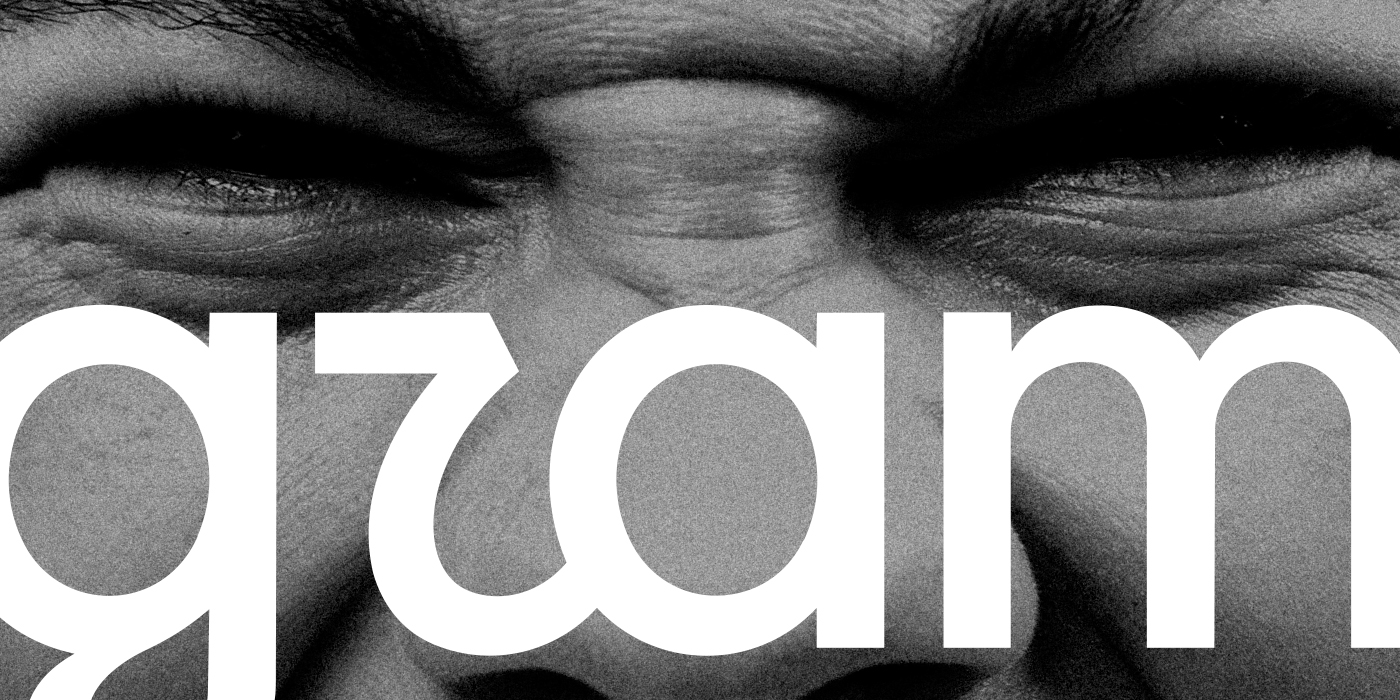
Within hours of Adam Mosseri posting the reveal of the new Instagram wordmark, there was a pile of comments pointing out that the new cursive “r” reads more like a “z.” “Instagram” became “Instagzam” and brands came out of nowhere to run with the joke: Wendy’s, KitKat, Knorr, Canva, Oppo, even ChatGPT posted their own logos “refreshed” in a suspiciously Instagram-adjacent script, mocking the update on the app’s own playground. It’s the kind of bullying that only happens when a redesign touches something almost 3 billion people look at daily. Some of the criticism is fair, some of it is just the internet doing what the internet does best. But underneath the memes is a genuinely interesting typographic problem, and that’s the part we actually want to dig into.
So, why did Instagram need a rebrand at all?
Here’s the thing about Instagram’s old wordmark: it had been doing the same job, unchanged, for over ten years, while everything underneath it kept evolving. Meta’s in-house team, led by Christy Silva (creative director) and Cynthia Pratomo (director of brand design), alongside Meta’s Jasmine Probst (director of product design) and May Hartono (director of brand design), worked alongside global creative studio Koto on the execution. Koto has since published its own case study on the project, titled A new mark with old memories.
The communication problem they were solving is more interesting than “it’s time for a refresh.” When Instagram launched, the camera glyph and sunset gradient had to carry the full weight of telling you what the app even was. Now that Instagram is, in Christy Silva’s words, familiar to billions, the brand doesn’t need to explain itself anymore. It needs to express what Instagram has become: a platform that holds serious campaigns, shitposting and blurry concert photos all at once. Cynthia Pratomo describes it as Instagram “growing up”, not becoming more serious, just admitting it no longer speaks in one single voice.
The refresh brings an updated Instagram Sans, a new handwriting typeface called Instagram Pen (still in development, built from testing everything from soft pencil to bold ink), and a brand-new Instagram Mono. Motion, layout and UI all got more breathing room, and the sunset gradient now shows up more sparingly, sometimes as a “light leak” nod to actual film photography instead of a flat digital fill. The camera glyph itself hasn’t moved an inch. The rebrand is a system-level update dressed as a logo change.
About that “r”
Now, the technical bit. Instagram’s wordmark has always been a script. That means connected letterforms and  in the case of the lowercase “r”, a small “loop” or “peak” that curls up and continues the letter. That little loop is what tells your eye “this is an r,” distinct from an “n” or, in this case, a “z.”
When a rebrand tightens up a script to feel more in line with a sans-serif system, tha loop is often one of the first things to get shaved down in the name of restraint. From there, designers are walking on thin ice: if they flatten it enough, and the r loses the one feature that separates it from other characters. That’s just how cursive letterforms work: legibility in script typefaces leans heavily on those connecting strokes, and removing them can compromise how quickly the word reads at a glance.
In their own case study, Koto describes explicitly targeting that ‘r’, testing variations of handwritten and calligraphic forms to find the point where the letterform could bend without breaking. Their words: the goal was a mark that felt authored, not optimized.
Can Instagram afford to be a little less legible? Actually, yes.
Change is uncomfortable, and readability complaints are valid feedback. But Instagram is one of the very few brands on Earth that can genuinely afford to compromise a little bit of legibility, because the shape of that word is already tattooed onto our eyes. We’re talking about a platform with roughly 3 billion users. That kind of brand recall buys you room to take typographic risks that would sink a less omnipresent product.
The old script clashed with everything else Meta has been building. Instagram Sans, the geometric typeface the platform has been rolling out across its UI for years, doesn’t share much DNA with a loose cursive. The new wordmark solves that by pulling from both directions. We’re watching a wordmark catching up with the system around it.
This isn’t the first time Instagram has done this, either. Go back to 2016, when the Polaroid camera got replaced by the flat gradient glyph we know today. The backlash was enormous — The New York Times literally called it “the great Instagram logo freakout.” A decade later, that gradient icon is one of the most recognisable marks on the planet, and most of us look back at the old camera with nostalgia rather than any real desire to bring it back. It was charming, sure. It was also nearly impossible to sustain across a design system. We have a feeling this new wordmark will follow the same arc: loud complaints now, quiet acceptance later, and eventually we’ll all forget we ever minded. We always find our way back to being Instagram addicted anyway.
The real headline here: typography matters
If there’s one thing we want you to take from this entire saga, it’s this: look at how much conversation a purely typographic decision has managed to generate. A single letterform tweak turned thousands of casual scrollers into overnight type critics, debating ascenders and legibility. That’s proof of exactly how much power it holds.